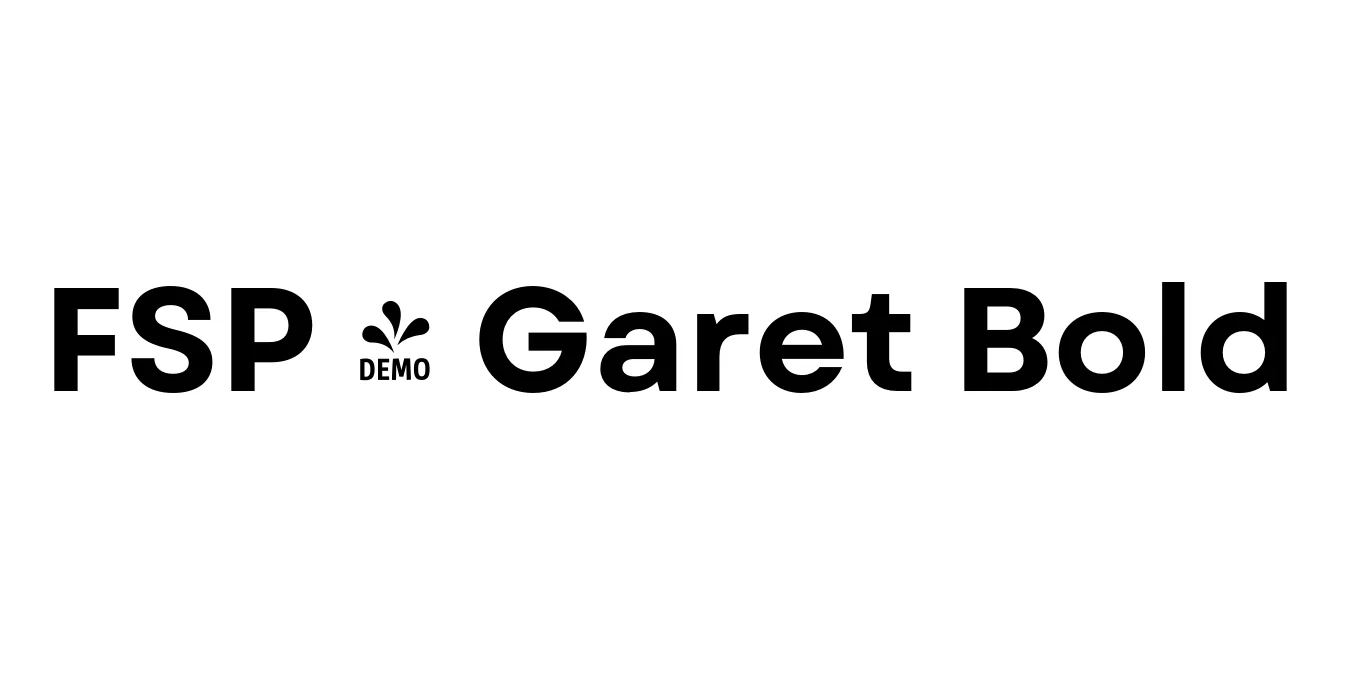
FSP - Garet Bold
Designed by Mirela Belshova, Stan Partalev
Garet Bold is a powerful weight within the Garet family, a modern geometric sans-serif typeface developed by the renowned Fontfabric foundry. It is defined by its clean, open counters and a high x-height, which ensures that text remains exceptionally legible even at smaller scales. The bold iteration specifically provides a robust visual impact, making it a favorite for designers who need to balance structural strength with a friendly, approachable contemporary aesthetic.
The design philosophy behind Garet is rooted in the purity of geometric forms, though it incorporates subtle humanist nuances to avoid appearing overly rigid. This versatility allows it to function seamlessly across various platforms, from corporate branding to creative editorial layouts. Whether deployed on high-resolution digital displays or in traditional print media, Garet Bold maintains its sophisticated flair and professional integrity, serving as a reliable foundation for modern visual communication.
FSP - Garet Bold Best Uses
Creating impactful and memorable brand identities and logos.
Ideal for bold website headers and clear call-to-action buttons.
Perfect for high-visibility posters, book covers, and brochures.
Highly effective for mobile application interfaces and navigation elements.